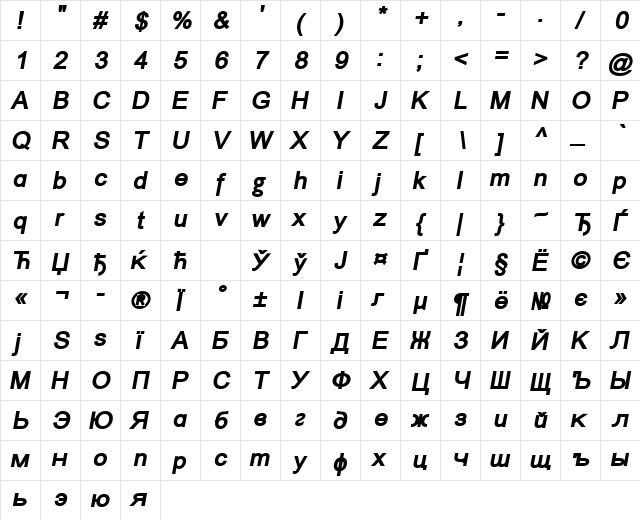
ER Univers 1251 Bold Italic Font Preview
Design Context for ER Univers 1251 Typeface
ER Univers 1251 offers clean, dependable letterforms without strong stylistic allegiance, making it a practical choice for designers who need flexibility. The slanted form adds forward momentum and visual energy. The heavy weight commands attention and anchors typographic hierarchies.
Pro Tip: Try ER Univers 1251 for annotation and caption copy alongside an upright companion — the contrast in angle creates a dynamic but ordered typographic system.